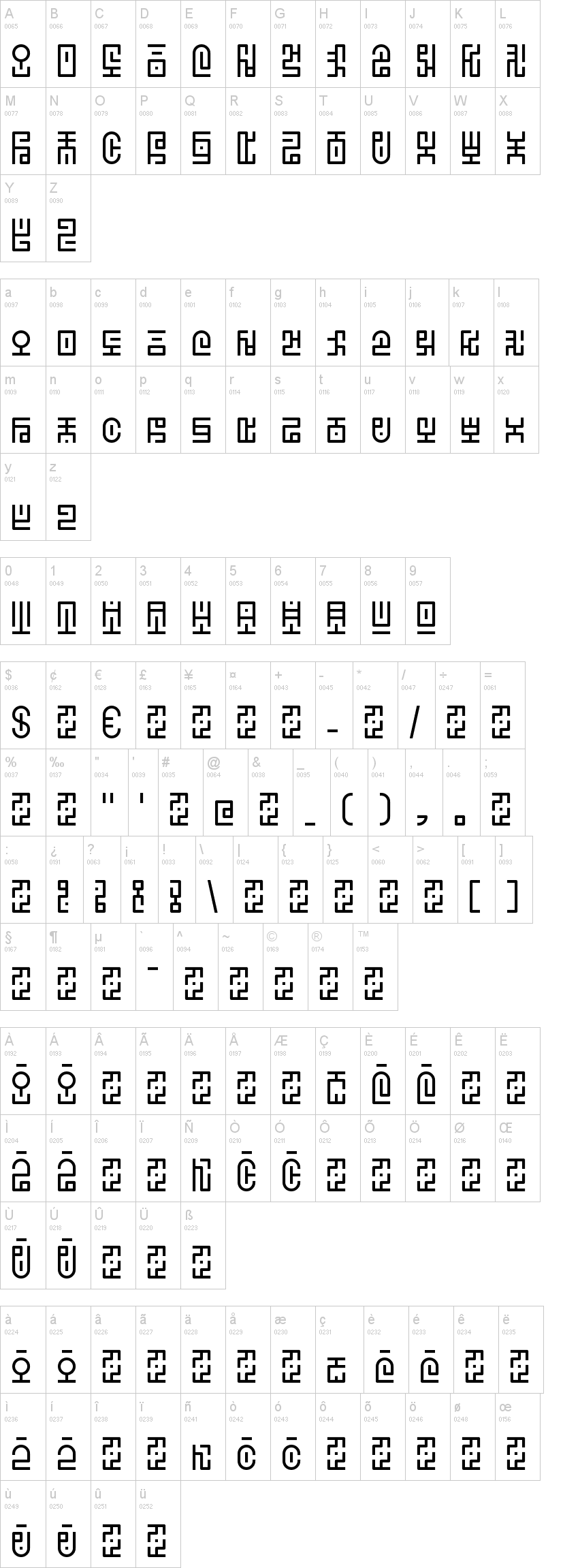
Note of the authorHello, this is my very first font, and prepare some tissue because this is going to get tearful in no time.
Recently I started on a new job, and for the first time on my life i am not doing graphic design. So i thought i'd like to do a tribute to that chapter of my life as a graphic designer.
In the other hand, some of the first fonts i used in my life comes from this site.
Then i thought it would be cool to close the circle that way, contributing with my own typography for those who would like to use it.
About the font itself:
I wanted to make a variation of our latin characters as some kind of runes.
"Deus Antics" means Ancient Gods in Catalan.
- There is lower case and upper case letters.
- The vowels are the only letters with curves, and the consonants are all square like.
- The symbols are pretty similar to the originals in order to help "Readability".
- Numbers goes from 0 to 9 and make use of the binary code (note the horizontal lines at the top.)